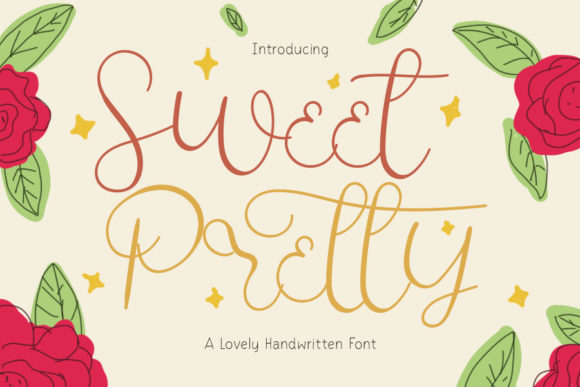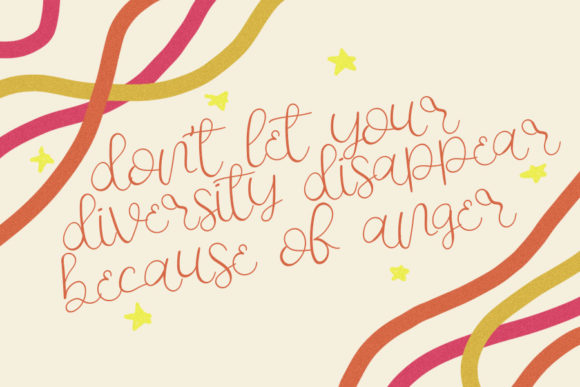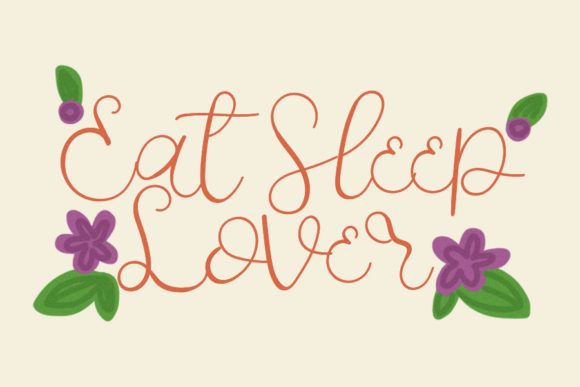
About Sweet Pretty Font
Sweet Pretty is a stylish and delicate script font. It has a clean, thin and smooth vibe and it will be a hit for any design that you want to add it to.